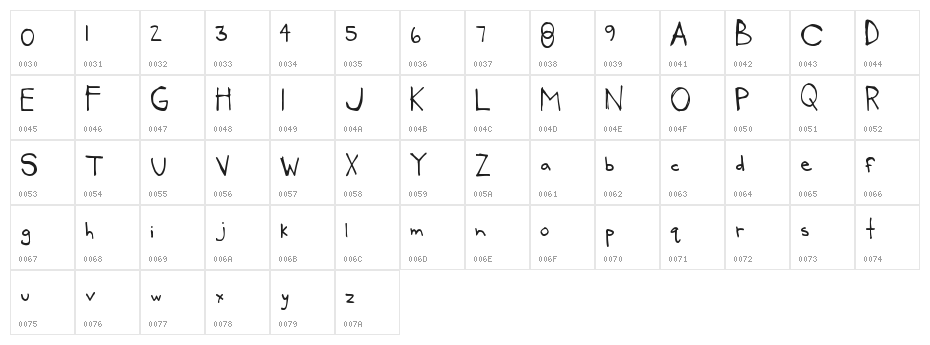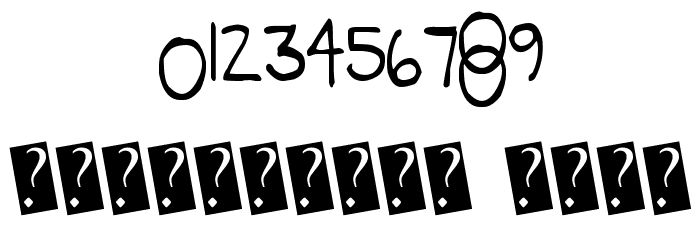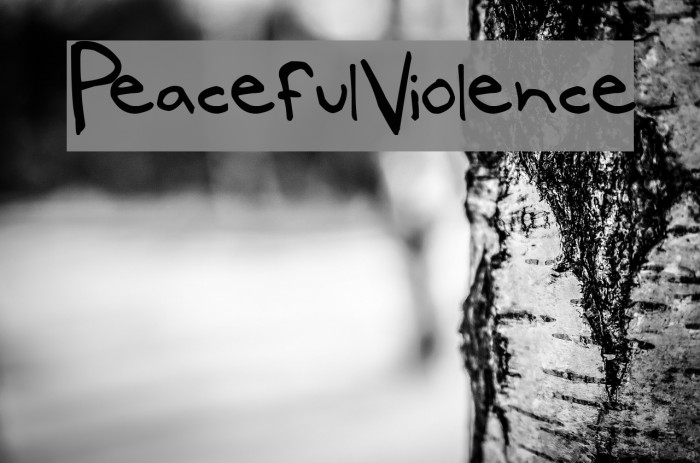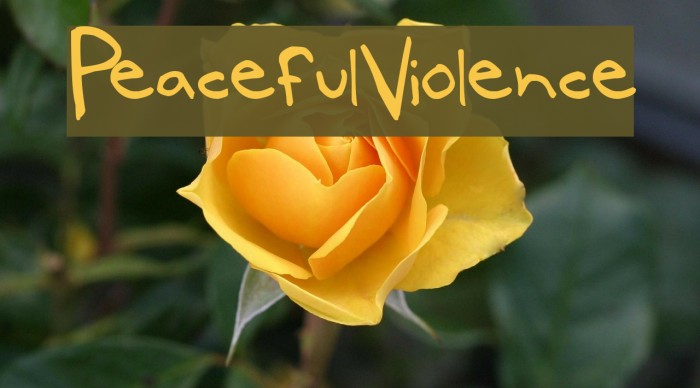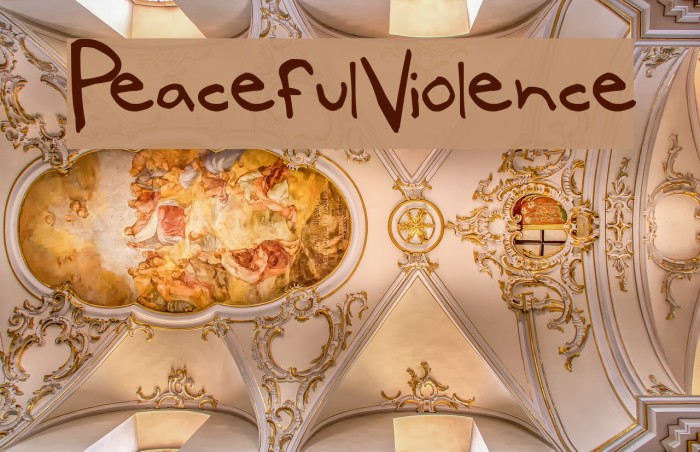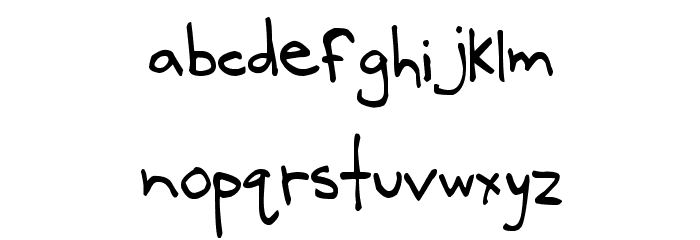
PeacefulViolence Font
PeacefulViolence Description
This font exhibits a playful and informal style, characterized by its hand-drawn appearance. The letters have a whimsical and slightly chaotic feel, with irregular strokes and varying line thicknesses that give it a dynamic and energetic look. The uppercase letters are bold and prominent, while the lowercase letters maintain a consistent flow, adding to the font's casual charm. The numbers and special characters follow the same playful design, making them stand out with their unique flair. This font is perfect for projects that require a touch of creativity and informality.
| Proposed Projects | Ideal for children's books, creative posters, informal invitations, and playful branding. |